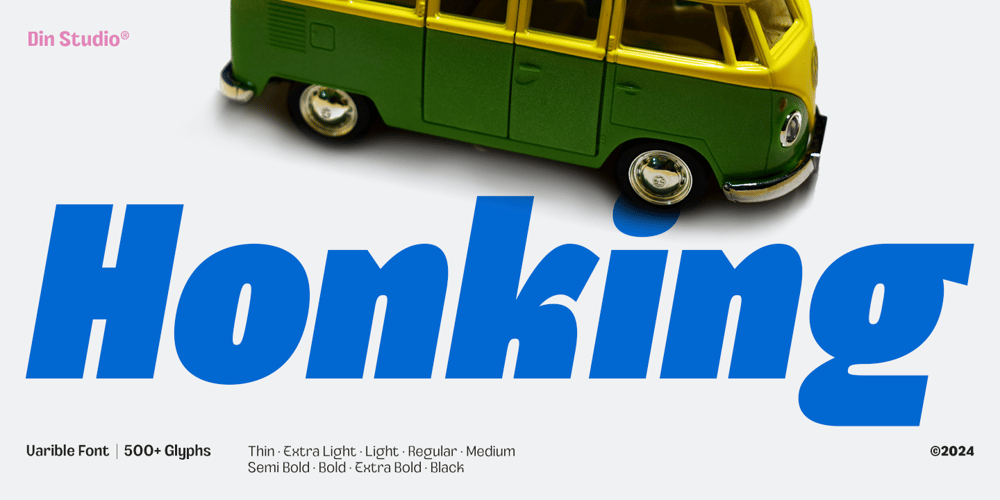
Honking
Honking font
Honking Font Family was designed by Donis Miftahudin and published by Din Studio. Honking contains 18 styles and family package options. Honking is a versatile sans serif font family designed with a modern style and a bold, impactful weight. Made in 9 different weights, each with an italic version, Honking provides ultimate flexibility for any design project. Elevate your designs with the contemporary sophistication of Honking.Honking’s different weight fonts : Thin (Regular/Italic) Extra Light (Regular/Italic) Regular (Regular/Italic) Medium (Regular/Italic) Semi Bold (Regular/Italic) Extra Bold (Regular/Italic) Black (Regular/Italic) Features: Multilingual Supports PUA Encoded Numerals and Punctuations Honking fits in headlines, logos, posters, invitation, branding materials, packaging, print media, editorial layouts, and many more designs. Find out more ways to use this font by taking a look at the font preview.Thanks for purchasing our fonts. Hopefully, you have a great time using our font. Feel free to contact us anytime for further information or when you have trouble with the font. Thanks a lot and happy designing.